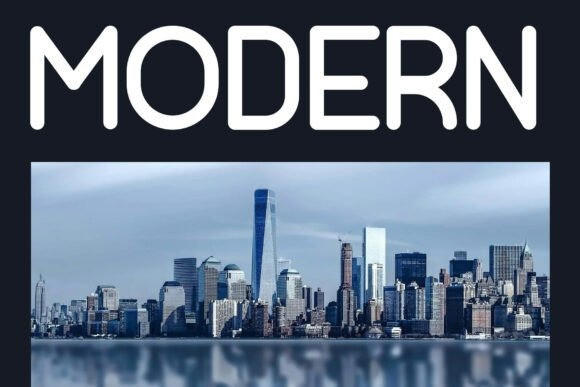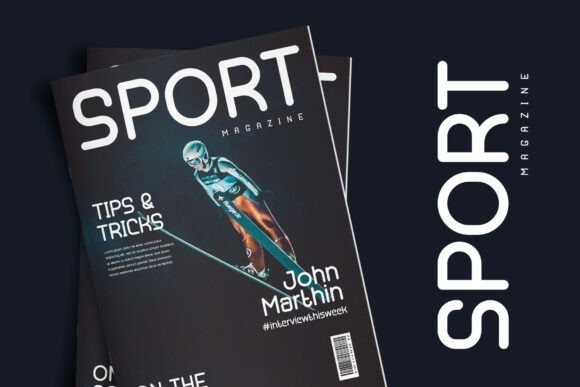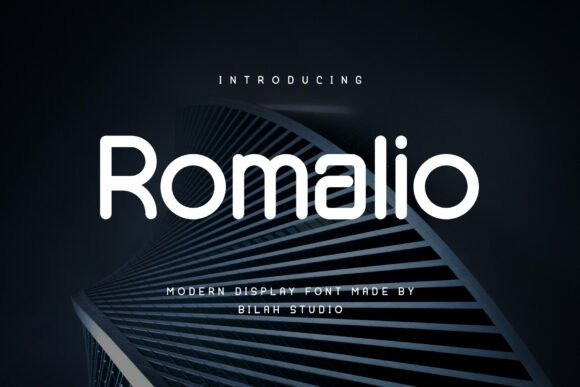
Romalio Font
Romalio Font is a simple typeface that can be used for logos, branding, headers, and titles. With precise kerning and spacing tailored for impressive logos and branding materials, Romalio Font ensures your designs leave a lasting impression. Enhance your design projects with Romalio Font today.